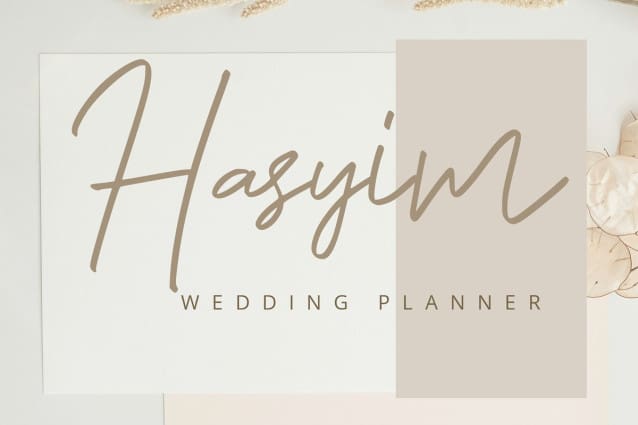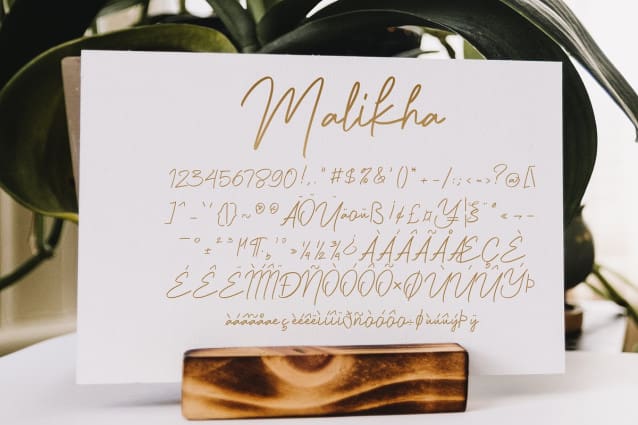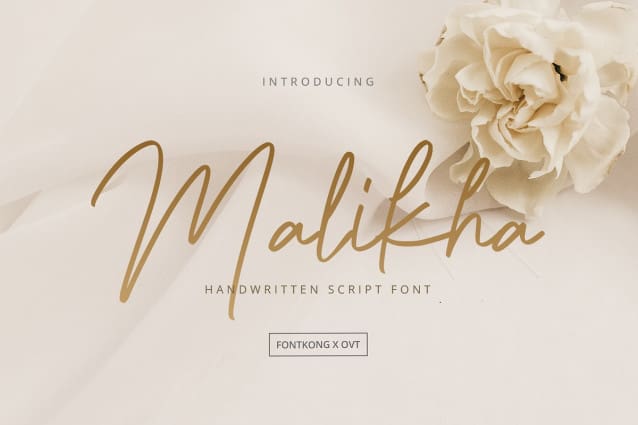
Malikha Handwritten Font
Malikha Handwritten Font a handwritten script font that captures the beauty and fluidity of natural handwriting. Perfect for designers, illustrators, and creatives looking to add a personal and elegant touch to their projects, Malikha Handwritten offers a charming and sophisticated aesthetic.
Ideal for wedding invitations, greeting cards, social media graphics, and branding materials, Malikha’s graceful curves and flowing strokes provide a warm and inviting look. Each character is meticulously crafted to reflect the authenticity of hand-drawn lettering, ensuring your designs stand out with a unique and personal touch.
The “Malikha” font includes a complete set of uppercase and lowercase letters, numbers, and punctuation marks, as well as a selection of ligatures and stylistic alternates. This versatility allows for a wide range of design applications, from heartfelt invitations to captivating branding efforts.
Add a touch of elegance and personality to your designs with Malikha Handwritten, a handwritten script font that embodies the art of beautiful handwriting.